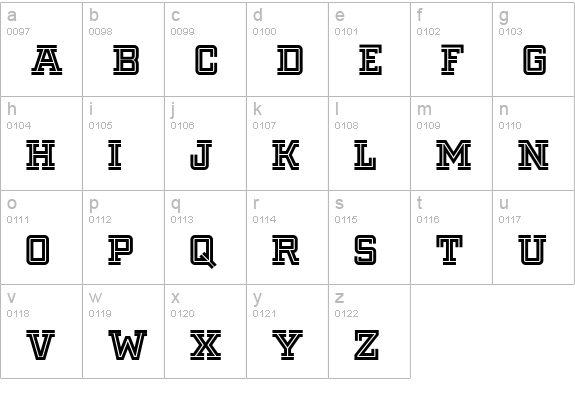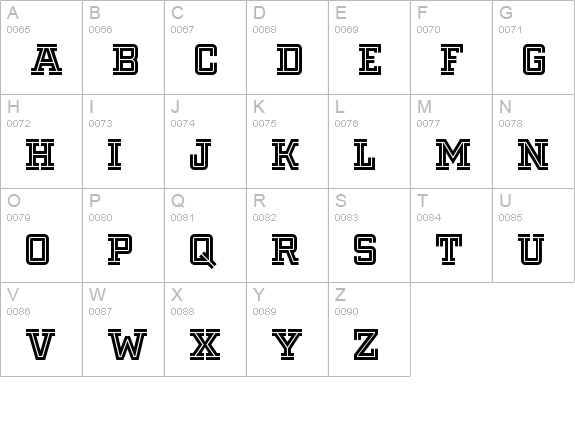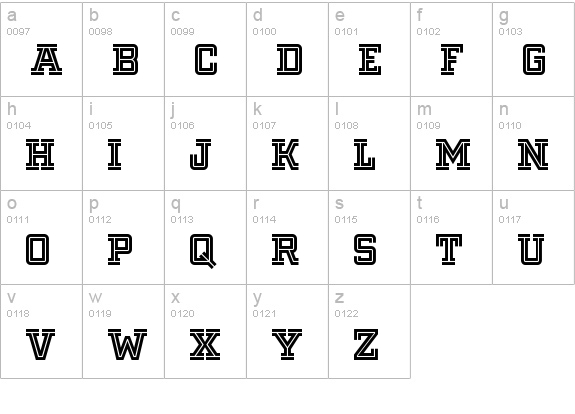
Fargo Faro NF is a stunning and versatile font that effortlessly combines elegance with a touch of vintage charm. This font exudes a timeless appeal, making it perfect for a wide range of design projects, from invitations and posters to logos and branding. With its clean lines and classic letterforms, Fargo Faro NF commands attention and adds a sophisticated touch to any design. Its carefully crafted details and graceful curves make it a true standout among other fonts. One of the best things about Fargo Faro NF is that it is completely free. Yes, you read that right! You can freely download this font at FontsMarket.com, a reputable source for high-quality fonts. This means that you can enhance your design projects without breaking the bank. Whether you're a professional designer or a creative enthusiast, Fargo Faro NF is a must-have addition to your font collection. Its versatility allows it to seamlessly adapt to various design styles and aesthetics, making it a reliable choice for all your creative endeavors. So why wait? Elevate your designs with Fargo Faro NF and let its timeless beauty captivate your audience. Download this font for free at FontsMarket.com and unlock its full potential today!